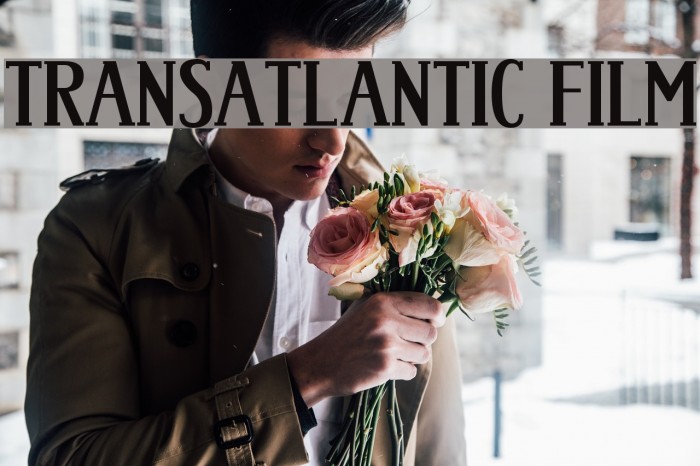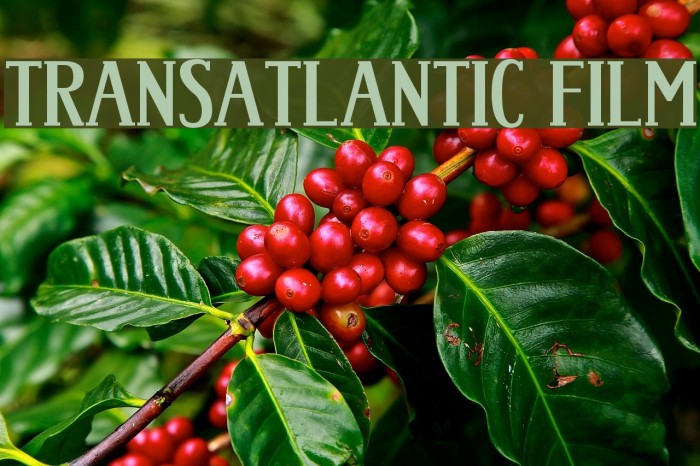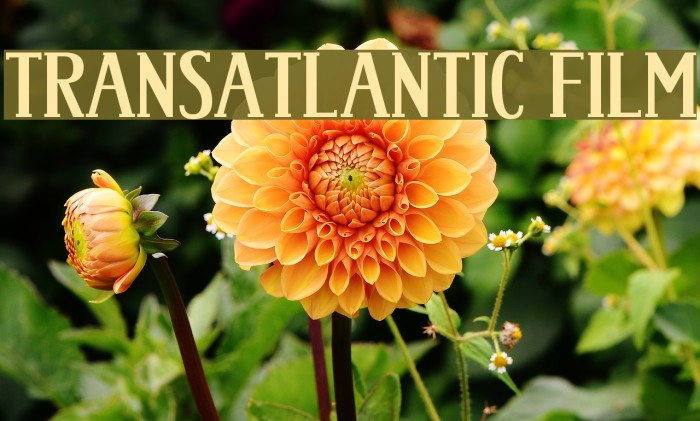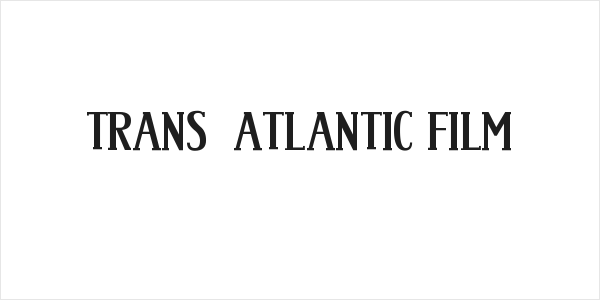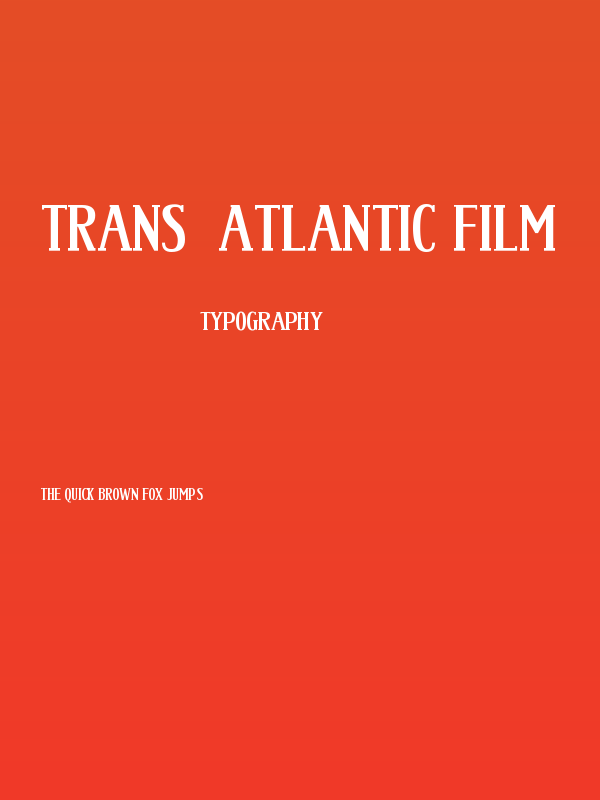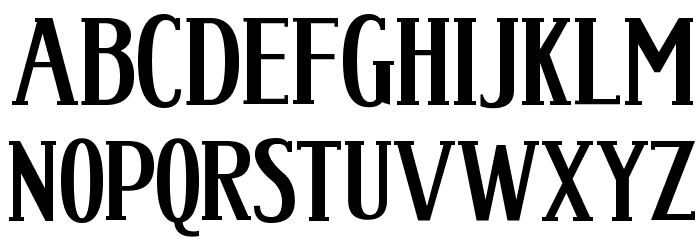
Trans-Atlantic Film Font
Trans-Atlantic Film Description
This font features a classic serif style with a strong presence and elegant curves. The uppercase letters are tall and slightly condensed, giving a sense of sophistication and authority. The serifs are pronounced, adding a traditional touch, while the overall design maintains a modern sensibility. The strokes are consistent, with moderate contrast between thick and thin lines, enhancing readability. This font is versatile, suitable for both digital and print media, and can be used effectively in various design contexts.